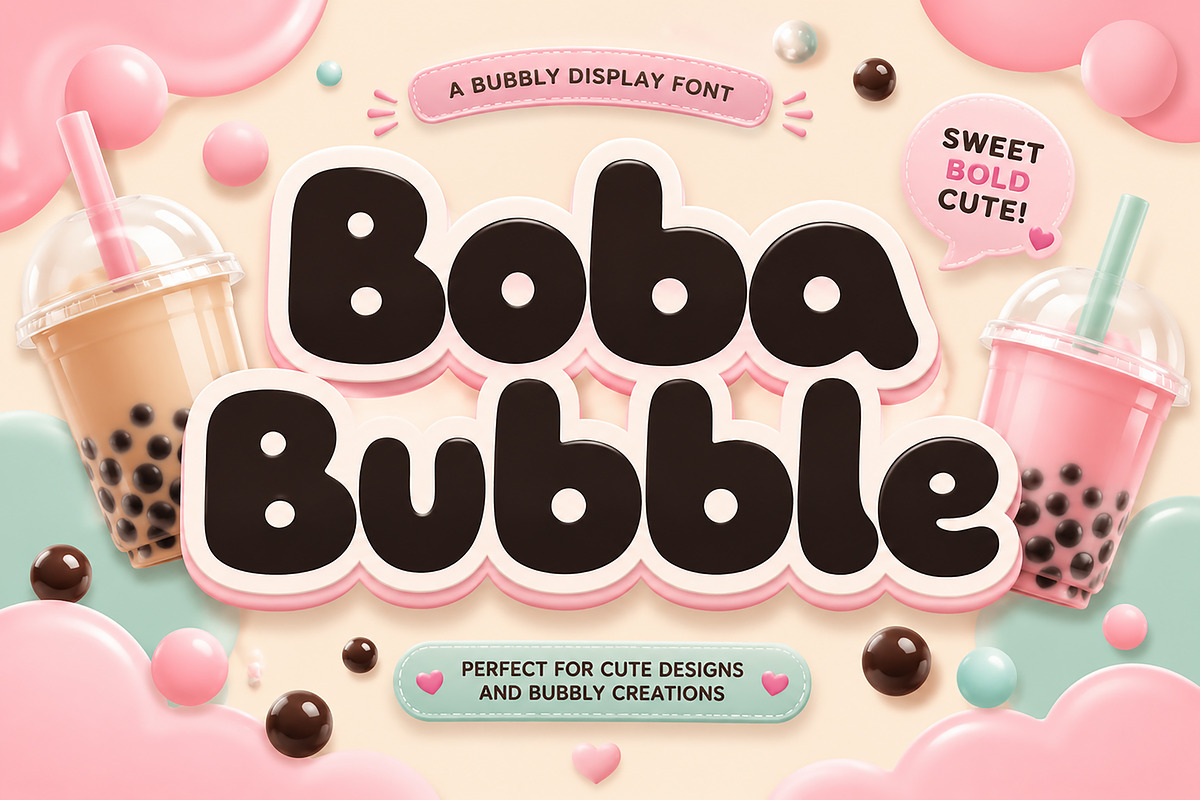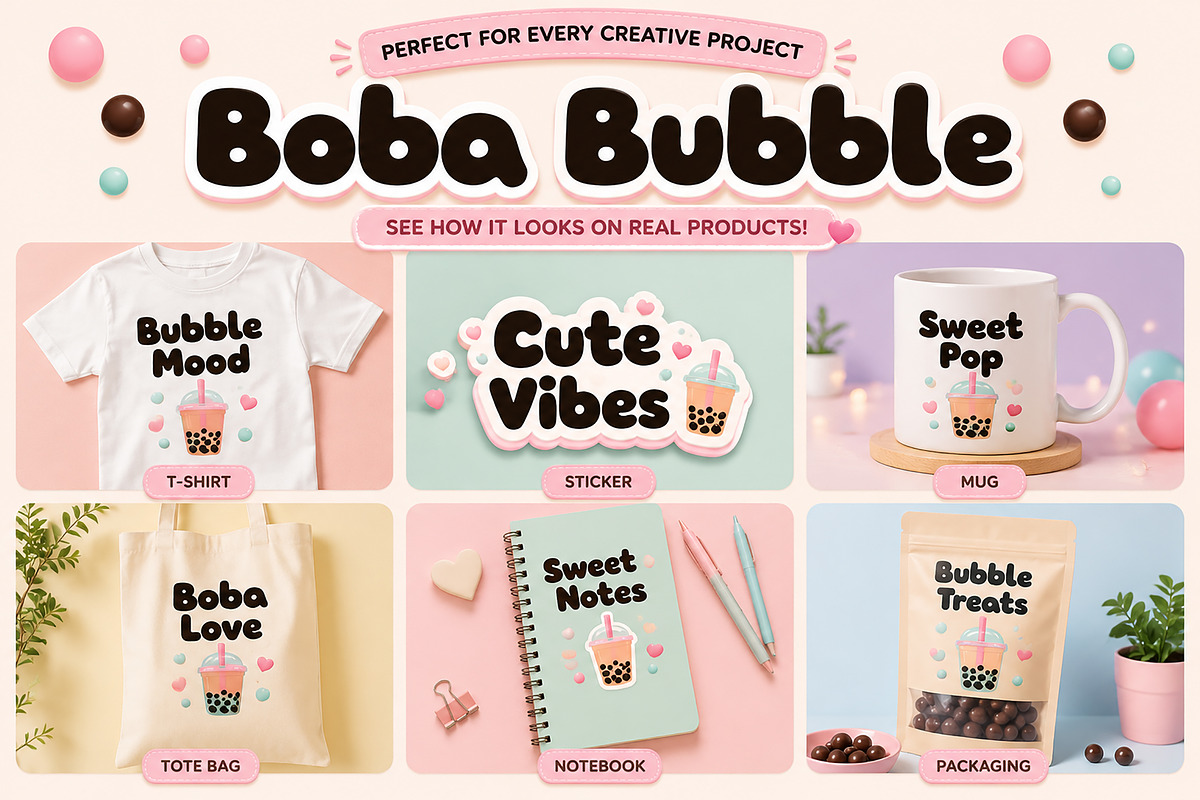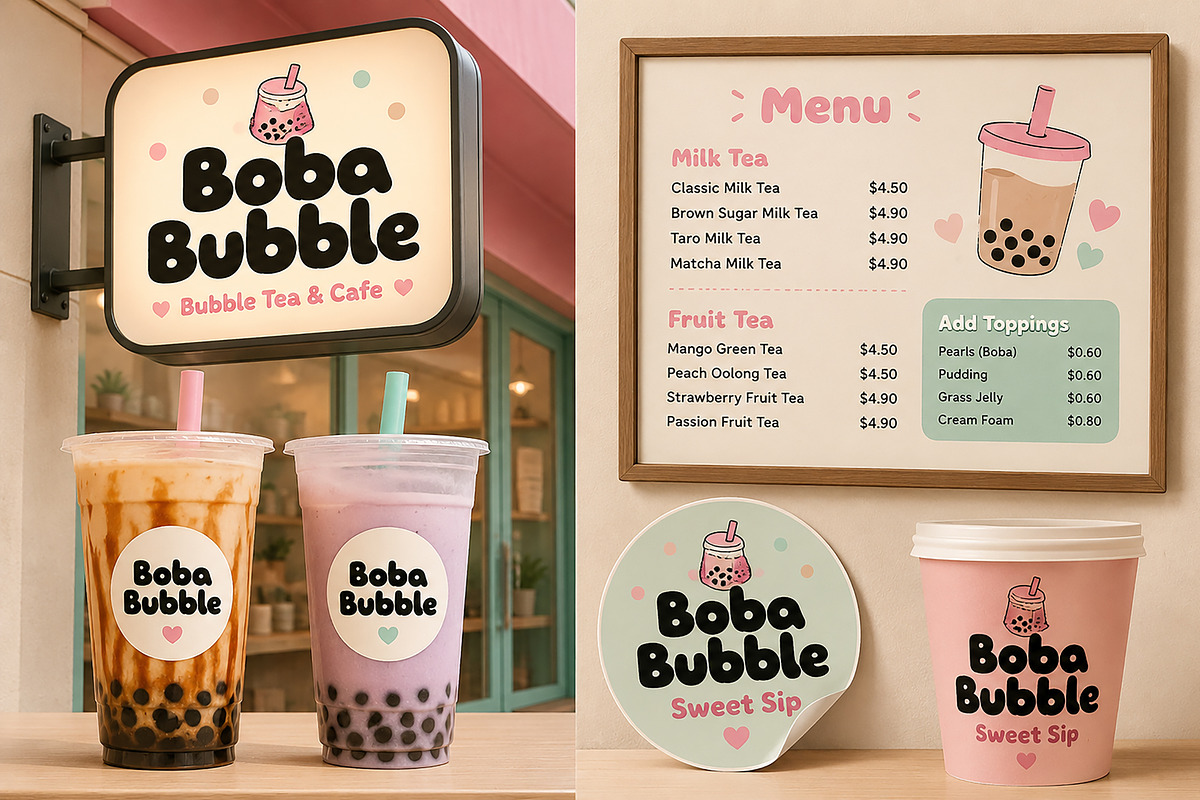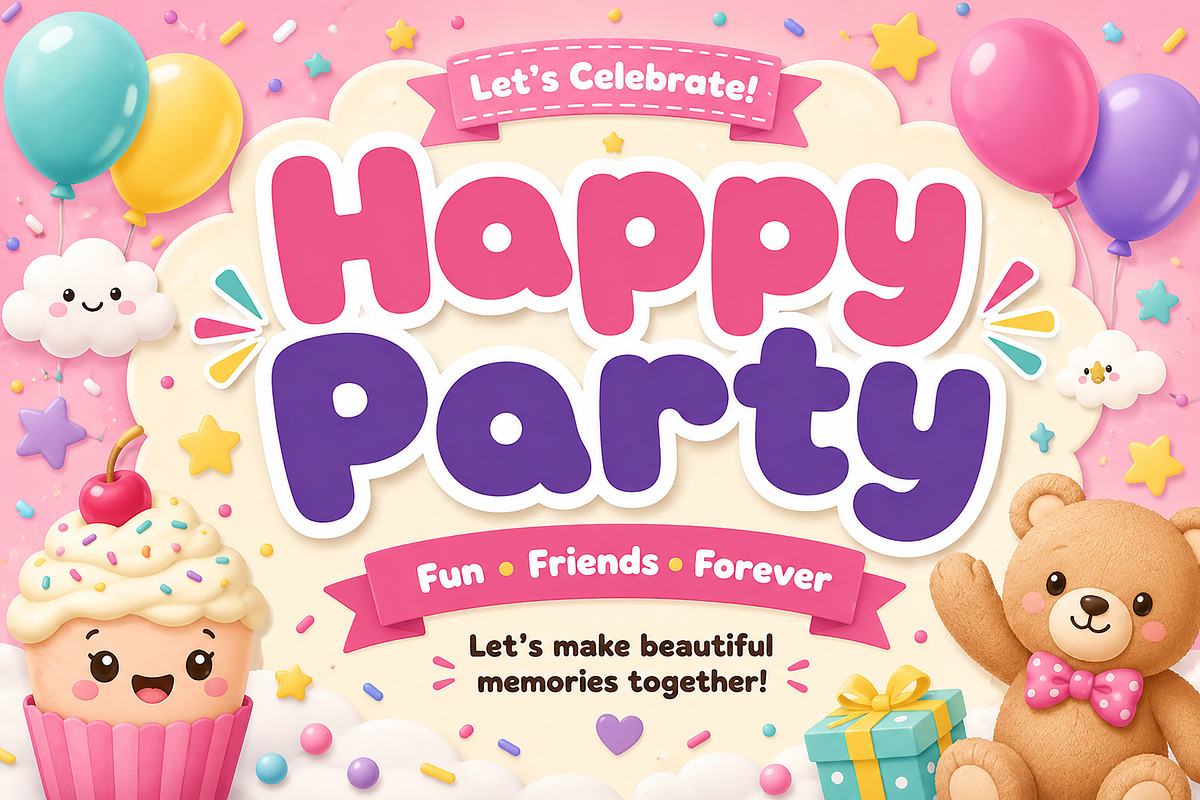
Boba Bubble
Boba Bubble – Cute Bubble Display Font
Boba Bubble is a fun, playful, and irresistibly cute display font inspired by bubble tea, candy shops, kids' parties, and sweet branding designs. Featuring chunky rounded letterforms, smooth curves, and a cheerful personality, this font instantly brings joy and friendliness to any project.
Perfect for children's products, party invitations, Cricut crafts, stickers, t-shirts, packaging, social media graphics, logos, posters, café branding, bubble tea shops, dessert businesses, and playful merchandise.
Whether you're creating a cute logo, colorful packaging, or a fun party design, Boba Bubble adds a sweet and charming touch that stands out beautifully.
### Font Features
• Smooth Rounded Characters
• Cute and Friendly Style
### Perfect For
• Bubble Tea Branding
• Kids Products
• Birthday Invitations
• Party Posters
• Cricut Projects
• Stickers & Labels
• T-Shirts & Merchandise
• Social Media Graphics
• Packaging Design
• Café & Dessert Shop Logos
• YouTube Thumbnails
• Scrapbooking & DIY Crafts
Bring sweetness, fun, and creativity to your designs with Boba Bubble – the ultimate cute bubble display font.